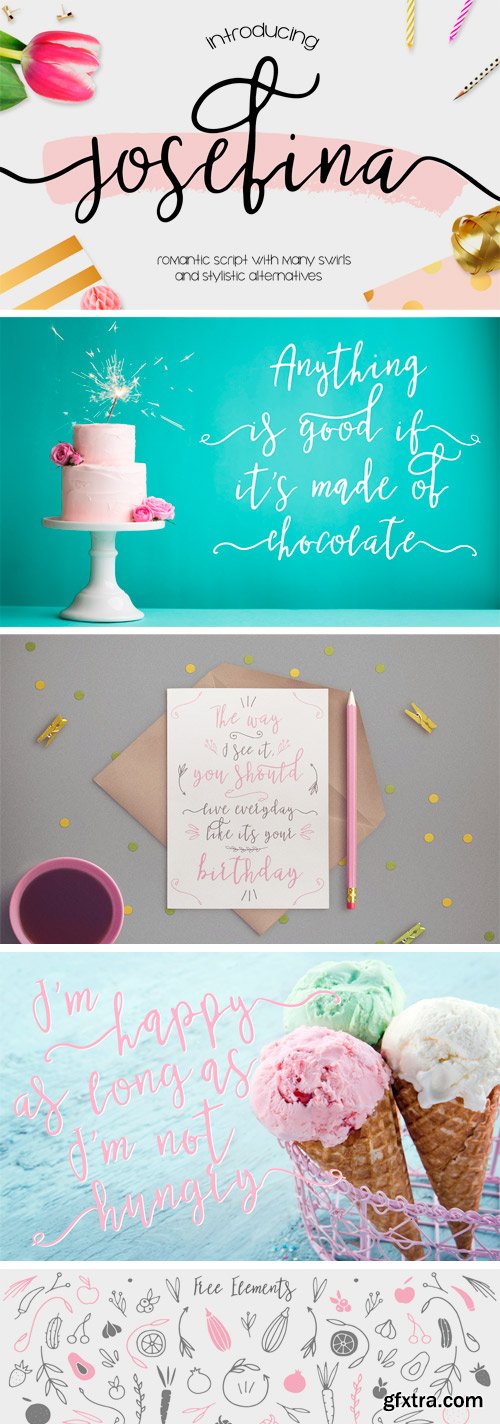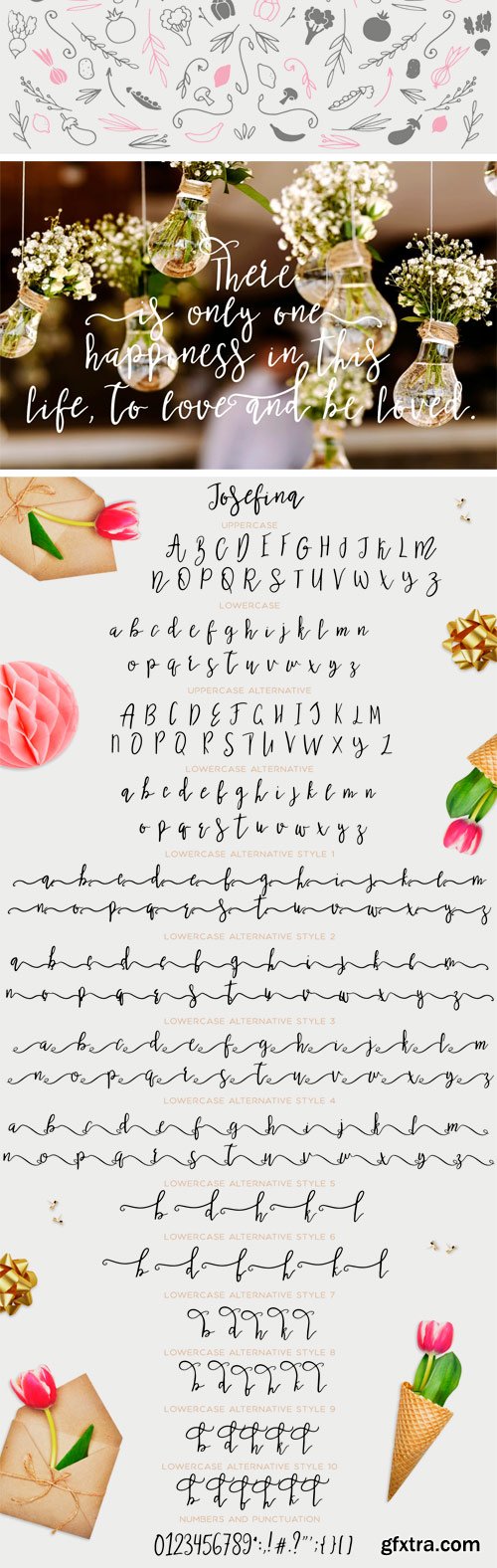
Romantic Script font with many swirls and stylistic alternatives. This font includes 242 glyphs. You can make your unique inscription, because the font contains 10 alternative styles. Lovely fonts would be perfect to combine in your design. This fonts are perfect for your blog or postcard for wedding. Also with their help, you can create a logo or beautiful frame for your home. Or just use for your small business, book covers, stationery, marketing, magazines.